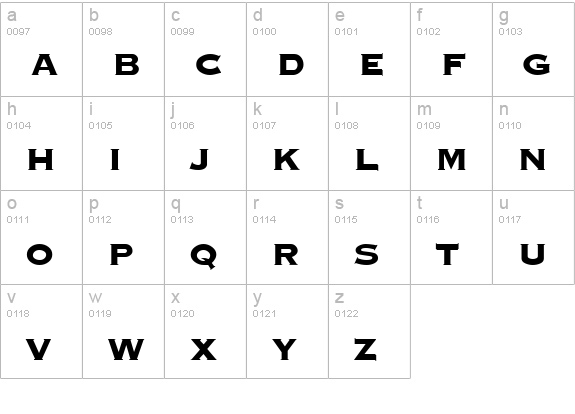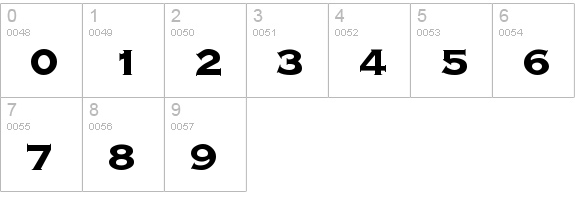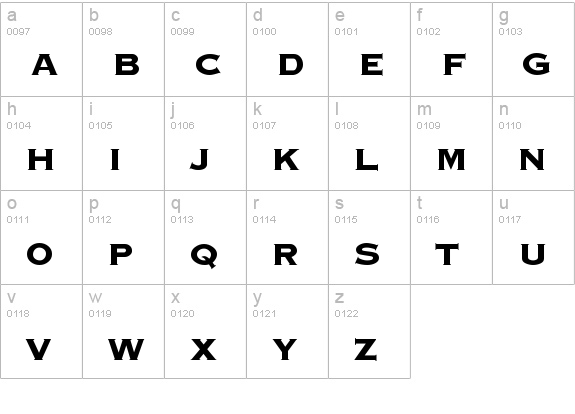
Graverplate Extrabold Font Details
Graverplate Extrabold is an extra-heavy, attention-grabbing variant in the Graverplate typeface family \xE2\x80\x94 well suited to high-impact headlines, posters, and bold branding.
Graverplate Extrabold is a bold and impactful font that demands attention with its strong, sturdy letterforms. This versatile typeface is perfect for creating eye-catching headlines, posters, and signage that need to make a bold statement. With its thick strokes and sharp angles, Graverplate Extrabold exudes confidence and modernity. What's even better is that Graverplate Extrabold is available for free download at FontsMarket.com. Whether you're a designer looking to add a powerful touch to your projects or a creative looking to spice up your work, this font is a must-have in your collection. Don't miss the opportunity to get your hands on this striking typeface for free and elevate your designs to the next level.